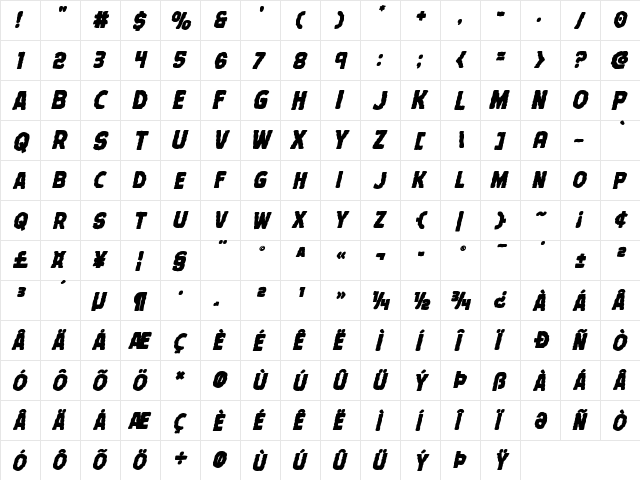
Terror Babble Bold Italic Bold Italic
Design Context for Terror Babble Bold Italic Typeface
Terror Babble Bold Italic is a composed and adaptable typeface that performs quietly and consistently across a wide range of design contexts. The slanted form adds forward momentum and visual energy. Its bold stroke weight gives it real presence on the page.
Pro Tip: Try Terror Babble Bold Italic for annotation and caption copy alongside an upright companion — the contrast in angle creates a dynamic but ordered typographic system.